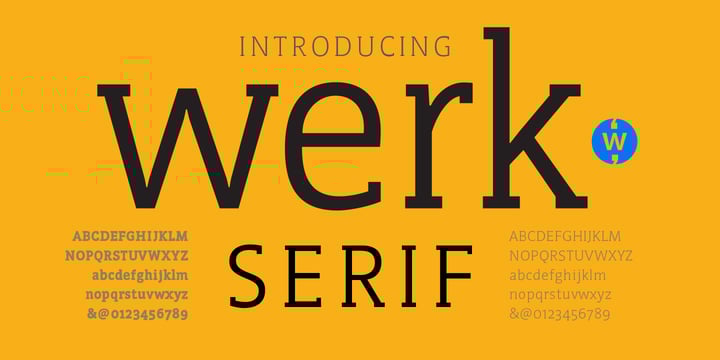
WerkSerif
by Wilton Foundry
The WerkSerif Font Family was designed by Robbie de Villiers and published by Wilton Foundry. WerkSerif contains 8 styles and family package options. More about this family
We created a serif version of our popular "Werk" Sans Serif that will greatly enhance the Work family of fonts. Like “Werk” Sans Serif, “WerkSerif” is a sturdy, well-tuned font that is a true “werkhorse” with plenty of character without being overbearing. “WerkSerif”is an ideal choice for corporate branding offering a complete typographic solution with the sans and serif range of fonts — also a prime choice for distinctive and dynamic logotype use. “WerkSerif” comes in a range of offerings from Light to Regular, to bold and Black with matching Italics.
Designers: Robbie de Villiers
Foundry: Wilton Foundry